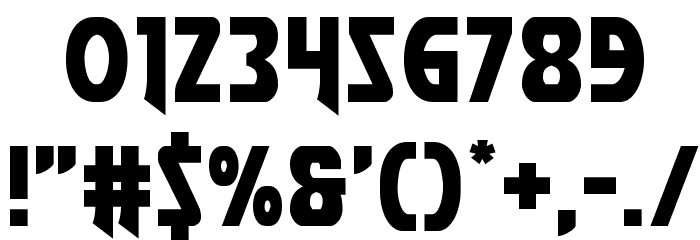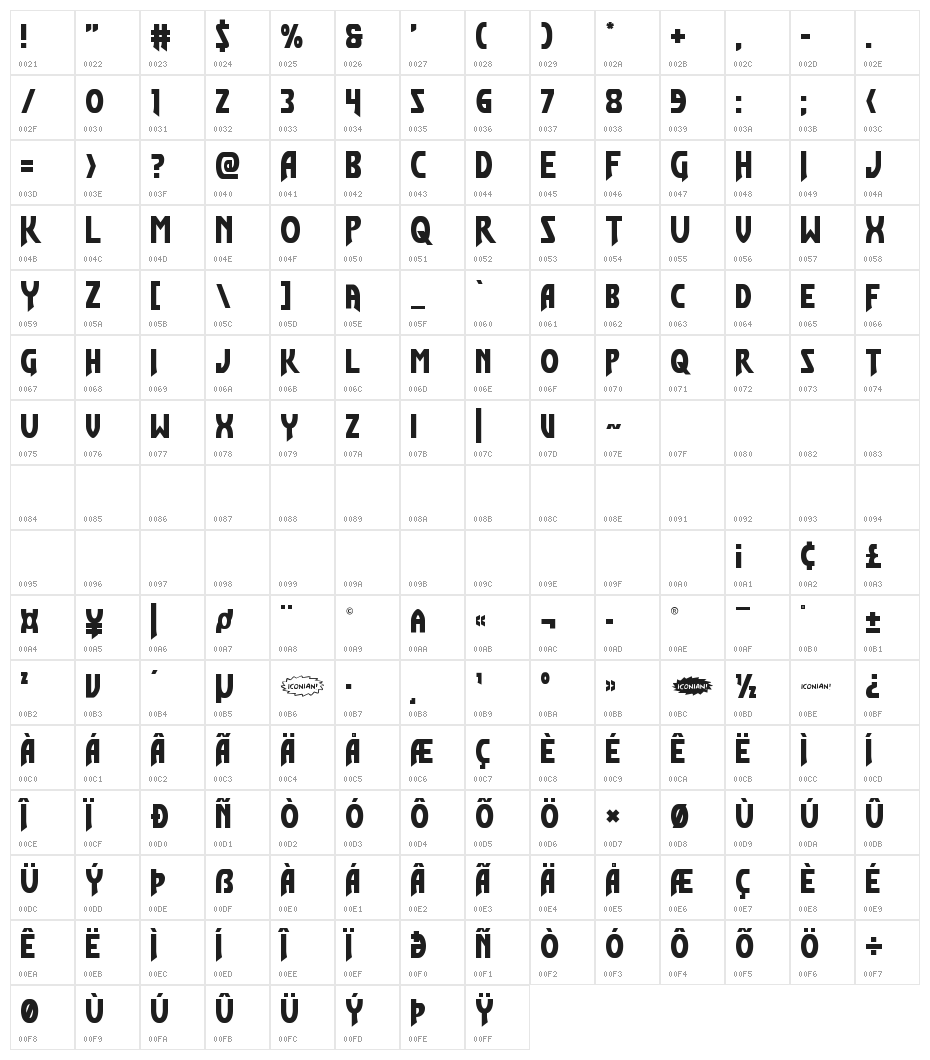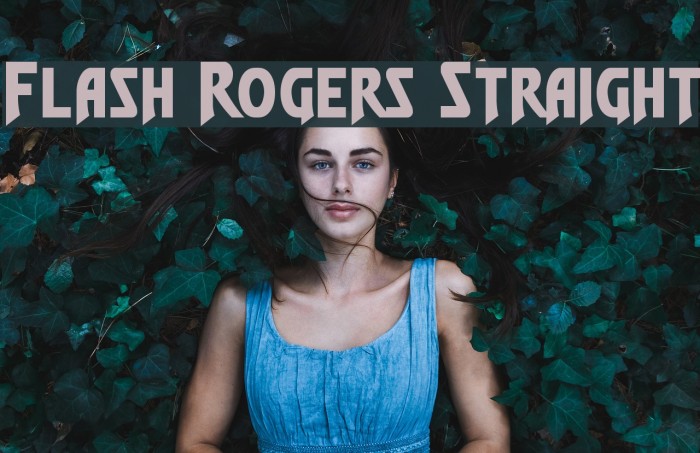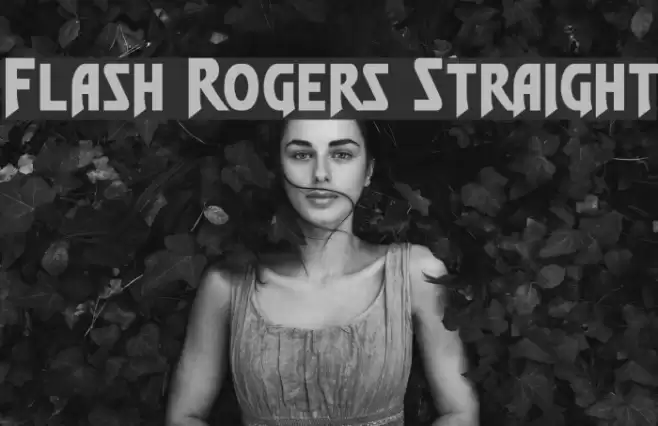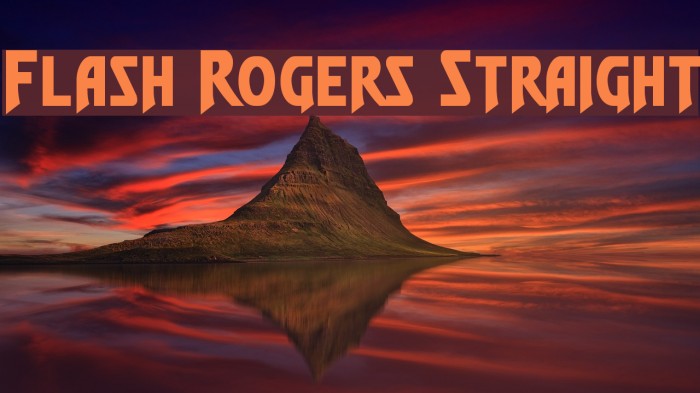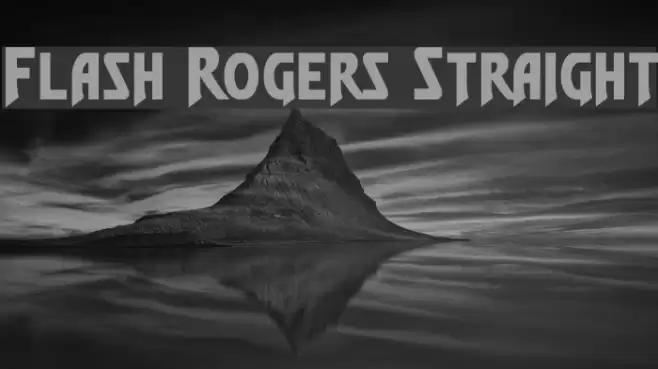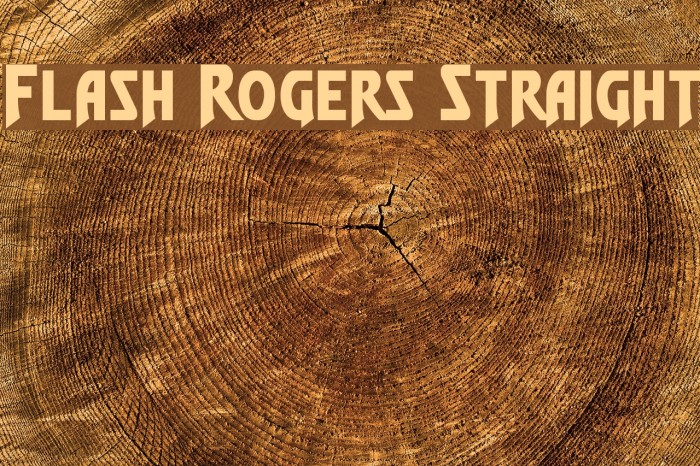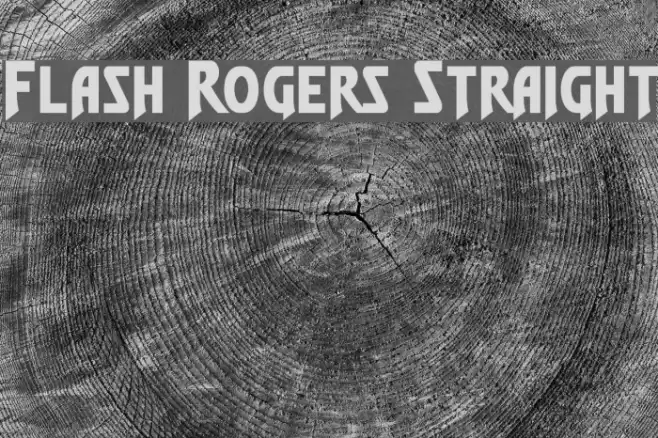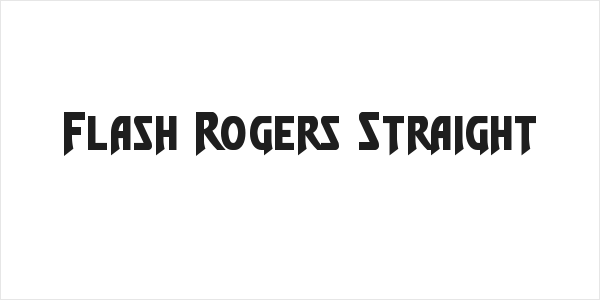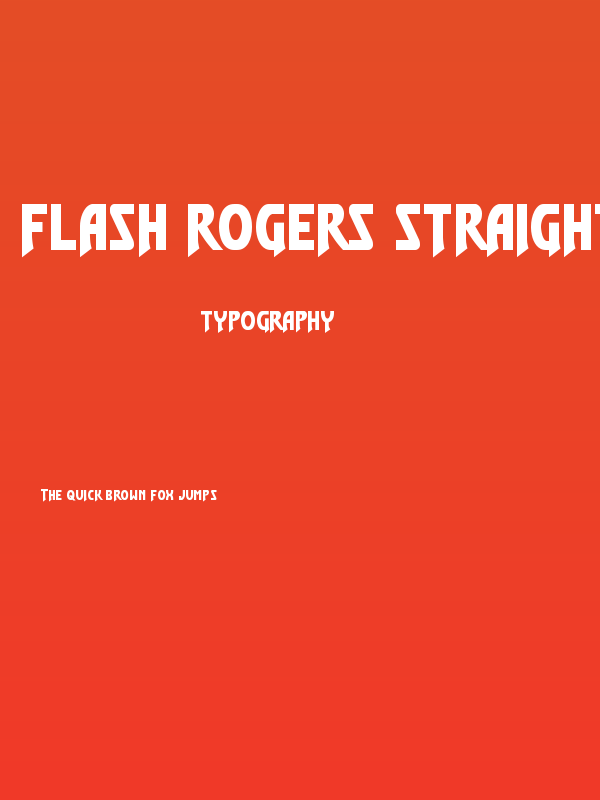
Flash Rogers Straight Font
Flash Rogers Straight Description
This font features bold, angular characters with a futuristic and dynamic appearance. The sharp edges and geometric shapes give it a distinctive, eye-catching style. The uppercase letters are particularly striking, with unique cuts and angles that suggest movement and energy. The numerals and special characters maintain this bold aesthetic, making them suitable for impactful designs. The overall design is cohesive, with consistent stroke widths and a modern flair that makes it ideal for attention-grabbing headlines or logos.
| Proposed Projects | Ideal for sci-fi themed posters, video game titles, sports branding, and dynamic logo designs. |